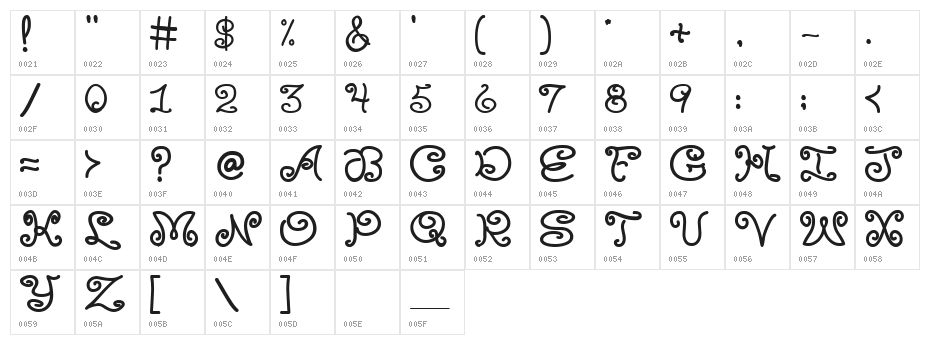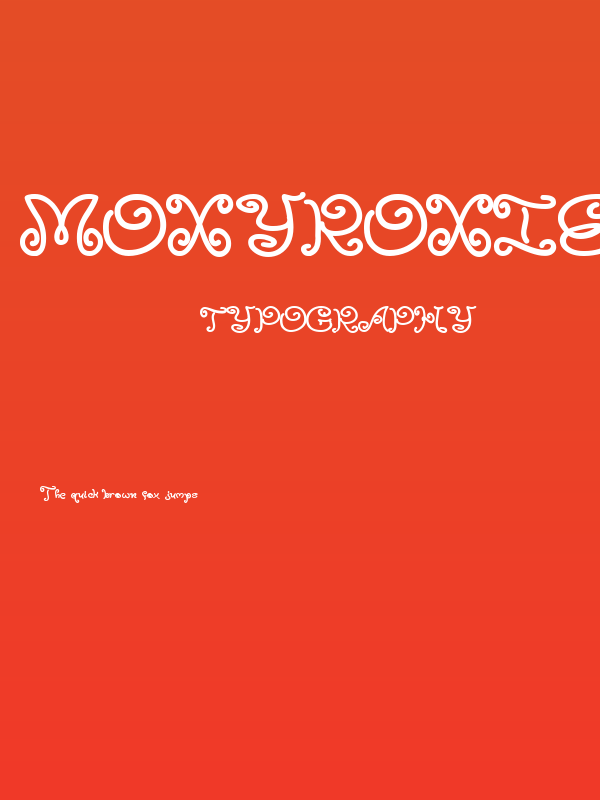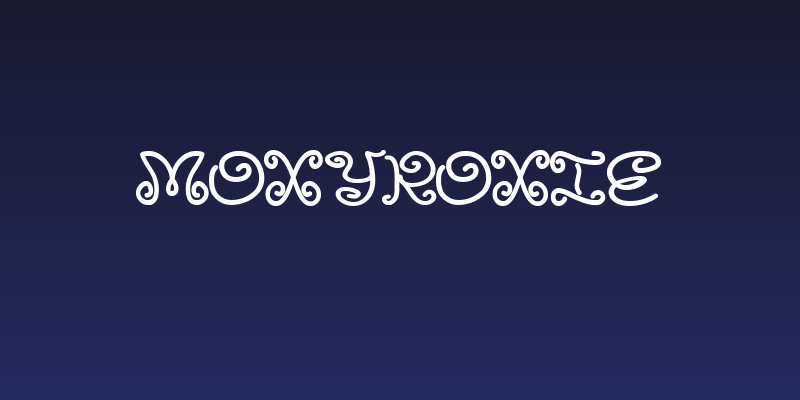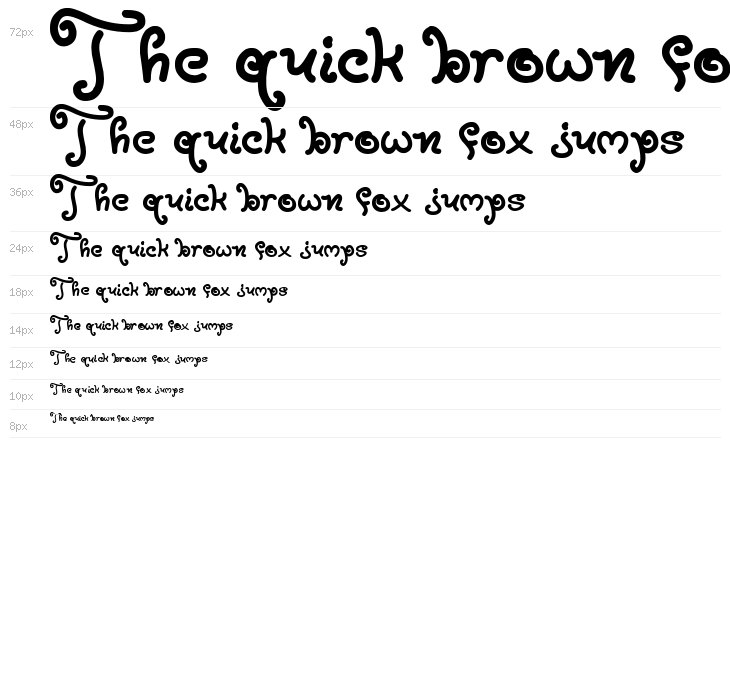
MoxyRoxie Font
MoxyRoxie Description
This font features a playful and whimsical design with a distinct decorative flair. The characters are bold and rounded, with unique swirls and curls that add a sense of fun and creativity. The uppercase letters are particularly ornate, with each letter having its own personality, while the lowercase letters maintain a more consistent style. The numbers and special characters follow the same playful theme, making this font ideal for projects that require a touch of whimsy and individuality. The overall appearance is bold and eye-catching, perfect for making a statement.
Overall StyleWhimsical, Playful, Decorative
Proposed ProjectsIdeal for children's books, playful branding, party invitations, and creative posters.